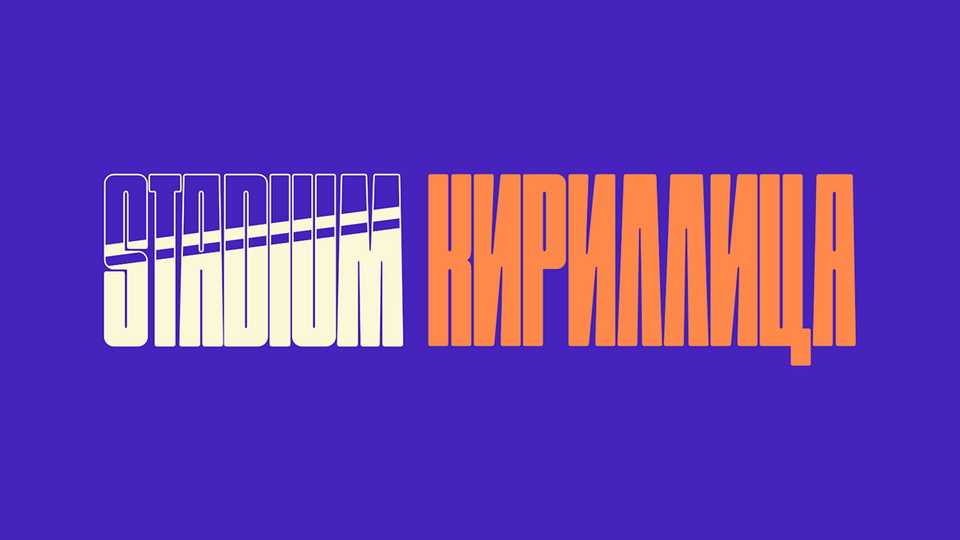
Download Stadium Cyrillic font an extension of the Stadium typeface. It’s a bold sans serif font with narrow powerful shapes created for strong design with authentic voice.